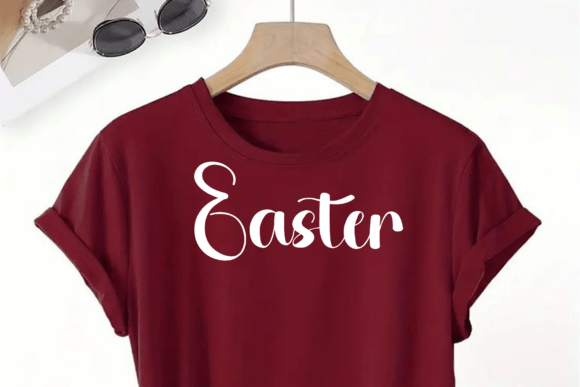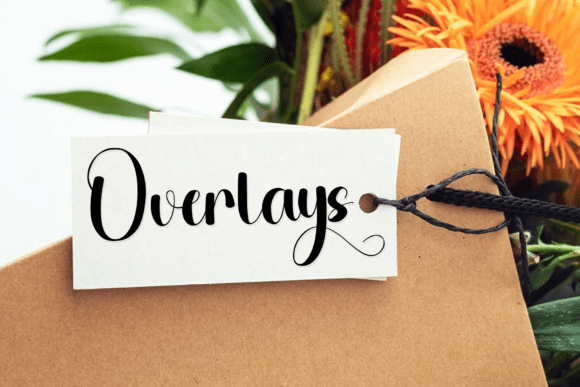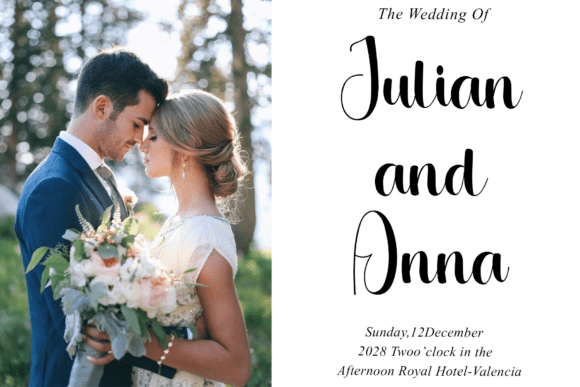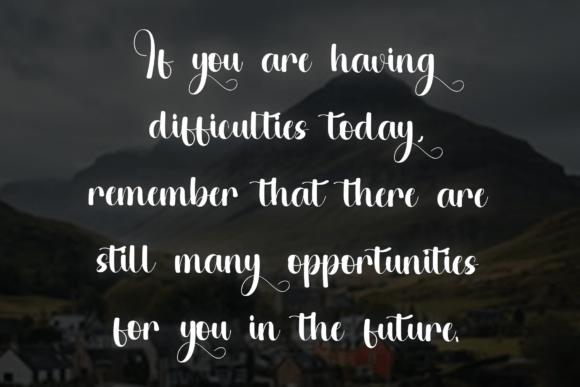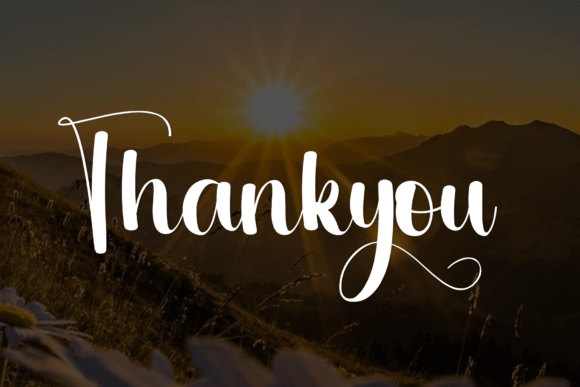
Introducing Fraeking Font: Elevate Your Design with Elegance and Sophistication
In the world of typography, a font can make or break the aesthetic of a design project. For designers and crafters seeking to infuse their work with a touch of luxury, sophistication, and elegance, Fraeking Font is an exceptional choice. This beautifully flowing and elegant modern handwritten script font is designed to transform your designs, offering a unique blend of smooth curves and graceful strokes that evoke a sense of refinement and poise.
The Characteristics of Fraeking Font
Fraeking Font stands out with its distinctive features, making it a versatile and stylish addition to any designer’s toolkit. Its smooth, generous curves and graceful, elongated strokes give it a sophisticated, signature look that is hard to replicate with standard fonts. This professional and unique typeface is meticulously crafted to provide a sweeping, authentic, and naturally luxurious touch to various design projects.
Ideal Applications for Fraeking Font
The versatility of Fraeking Font makes it suitable for a wide range of applications. Here are some of the ideal uses for this elegant font:
- Personal Branding: Establish a luxurious and sophisticated image for your brand with Fraeking Font. Its unique and elegant appearance makes it perfect for logos, business cards, and other branding materials.
- Photography Watermarks: Add a professional and stylish touch to your photographs with Fraeking Font. Its flowing script is subtle yet distinctive, protecting your images while enhancing their aesthetic appeal.
- Luxury Wedding Stationery: Make your wedding invitations, menus, and other stationery items stand out with Fraeking Font. Its elegant and sophisticated look is sure to set the tone for a luxurious and memorable wedding celebration.
- Editorial Design: Whether you’re working on a magazine, a book, or an editorial piece, Fraeking Font can add a touch of elegance and sophistication to your typography, making your content more engaging and visually appealing.
- Design Projects: Any project that requires a touch of luxury, elegance, and sophistication can benefit from Fraeking Font. It’s perfect for packaging, advertising, and other creative endeavors where making a statement is crucial.
Why Choose Fraeking Font?
Choosing Fraeking Font for your design projects comes with numerous benefits:
- Unique and Exclusive: Fraeking Font offers a fresh and distinctive look that sets it apart from more commonly used fonts. This uniqueness can help your designs stand out in a crowded marketplace.
- High Versatility: Its elegant and flowing script makes Fraeking Font adaptable to various design contexts, from digital media to print.
- Professional and Sophisticated: The font’s sophisticated look makes it an excellent choice for professionals who want to convey a sense of luxury, elegance, and refinement in their designs.
- Easy to Read: Despite its elegant and cursive nature, Fraeking Font remains highly legible, making it suitable for both headings and body text.
Tips for Using Fraeking Font Effectively
To maximize the impact of Fraeking Font in your designs, consider the following tips:
- Pair with Complementary Fonts: For optimal results, pair Fraeking Font with simpler, sans-serif fonts to create contrast and visual interest.
- Adjust Letter Spacing: Fine-tune the letter spacing to ensure that the text flows smoothly and elegantly.
- Consider Font Size: Use Fraeking Font in varying sizes to create a hierarchy of information and emphasize key points.
- Experiment with Colors: While Fraeking Font looks stunning in classic black or metallic colors, don’t be afraid to experiment with different colors to match your brand’s palette or design theme.
Fraeking Font is a beautifully designed, modern handwritten script font that brings elegance, sophistication, and luxury to any design project. Its smooth curves, graceful strokes, and versatile nature make it an ideal choice for designers and crafters looking to elevate their work. Whether you’re creating personal branding materials, photography watermarks, luxury wedding stationery, or editorial designs, Fraeking Font is sure to make a lasting impression. With its unique charm and professional look, Fraeking Font is a valuable addition to any designer’s toolkit.